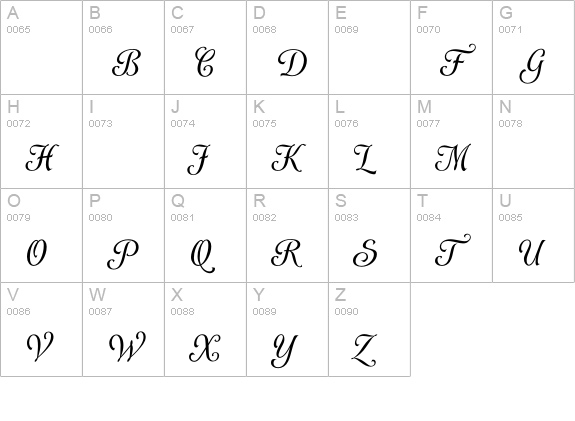
AlysBold Font Details
AlysBold font is a stunning display typeface that exudes elegance and sophistication. Its bold and prominent design makes it perfect for headlines, titles, and branding materials that require a strong visual impact. The sharp lines and unique letterforms of AlysBold font give it a modern and edgy look that is sure to grab attention. What makes AlysBold font even more appealing is that it is available for free download at FontsMarket.com. This means that you can easily access this stylish typeface without any cost, making it a valuable addition to your font collection. Whether you're designing a poster, logo, or website, AlysBold font will bring a touch of class and flair to your projects. Download it today and elevate your designs with this striking and versatile typeface.